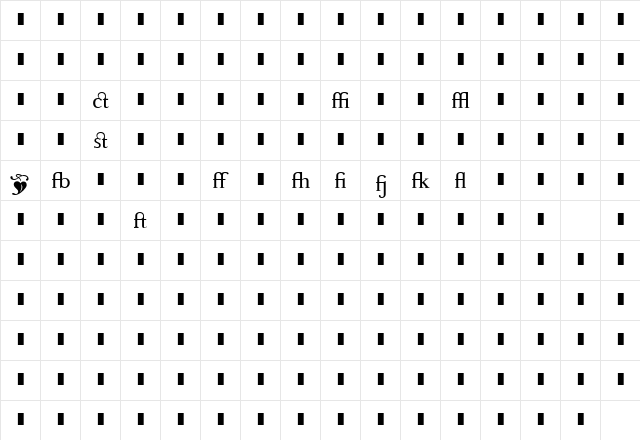
Baskerville1757Ligatures Regular
Baskerville1757Ligatures is a composed and adaptable typeface that performs quietly and consistently across a wide range of design contexts.